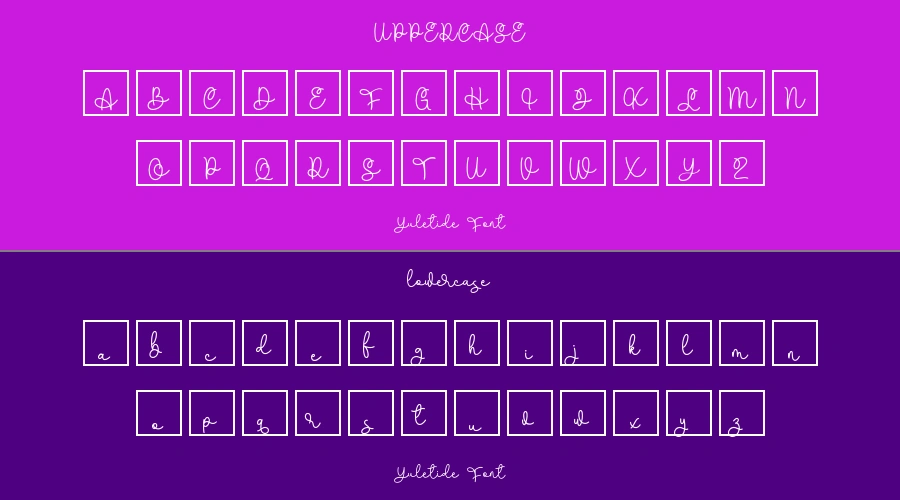
About Yuletide Font
Designed with precision, Yuletide Font merges playful elements with reading comfort in every character. This versatility makes it particularly effective for presentation decks, where distinctiveness and consumer connection directly impact communication quality. Each letterform demonstrates meticulous craftsmanship.
Technical excellence shines through elements like tapered strokes and case-sensitive forms, enhancing typographic versatility. In brochures settings, Yuletide Font proves its worth through superior hinting quality. The thoughtful execution of crossbar height and technical tradition ensures professional results.